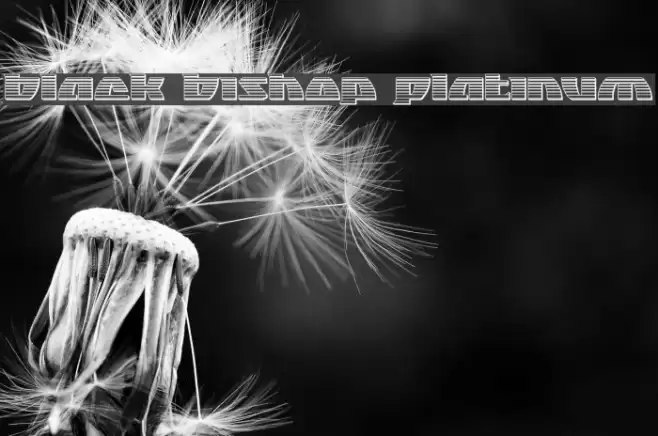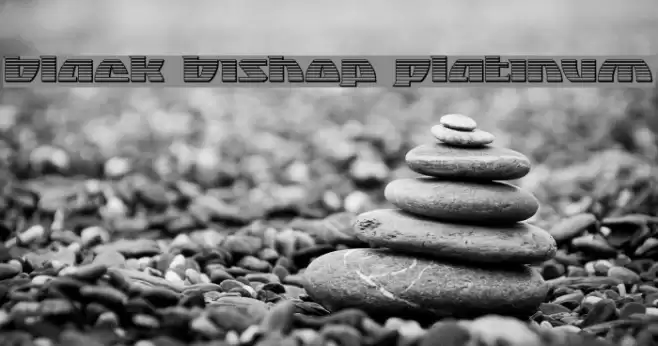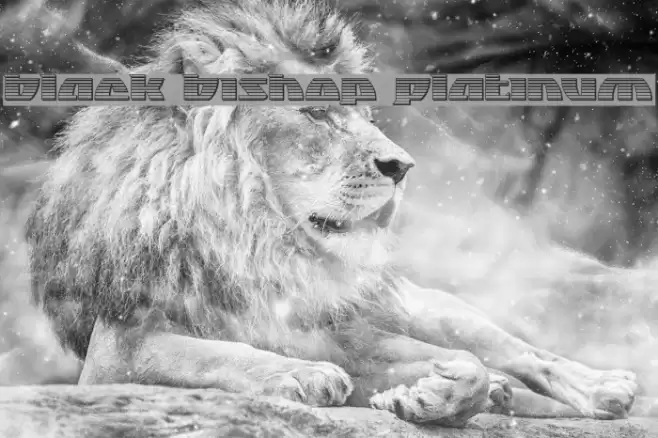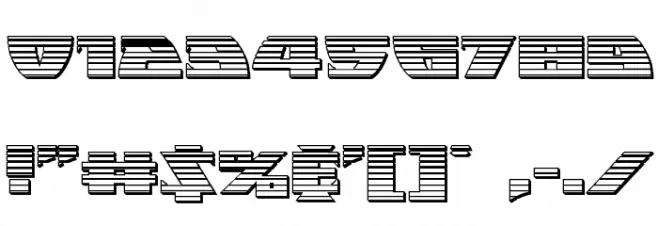
Black Bishop Platinum Font
Black Bishop Platinum Description
This font features a bold, geometric design with a distinct striped pattern running horizontally across each character. The uppercase and lowercase letters maintain a consistent width, creating a uniform appearance. The numerals and special characters follow the same design principles, ensuring cohesion across all elements. The font's unique style is both eye-catching and modern, making it suitable for projects that require a strong visual impact. The striped pattern adds a layer of complexity, giving the font a dynamic and energetic feel.
A bold, geometric font with a distinctive horizontal striped pattern from Uncategorized fonts.
- Proposed Projects: Ideal for branding, poster design, and any project needing a bold, modern aesthetic.